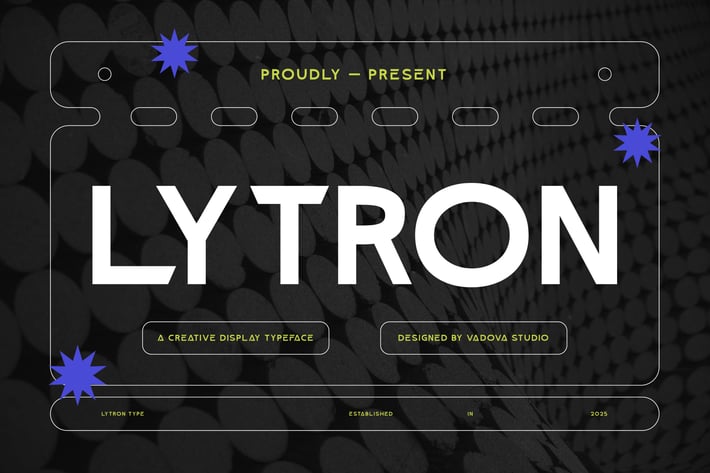
Lytron Creative Display Font
Lytron is a bold modern sans serif typeface with strong geometric roots and a contemporary edge. Designed for clarity and impact, Lytron works perfectly in tech branding, user interface design, clean editorial layouts, or any creative project that demands modern sophistication. With a full set of uppercase, lowercase, numerals, and punctuation, itβs highly functional while maintaining a bold, professional look. Whether you're designing a logo, headline, or packaging, Lytron delivers sharp legibility and futuristic flair.
Main Features
Uppercase & Lowercase characters
* Numeral & Punctuations